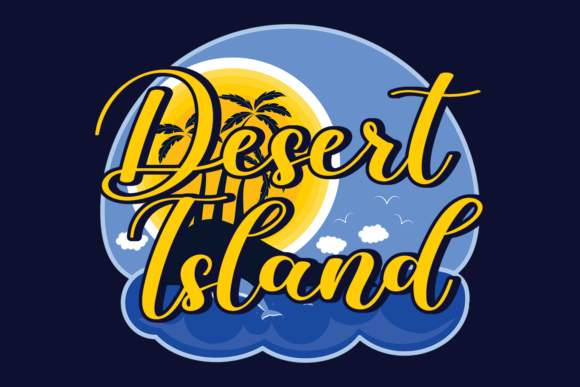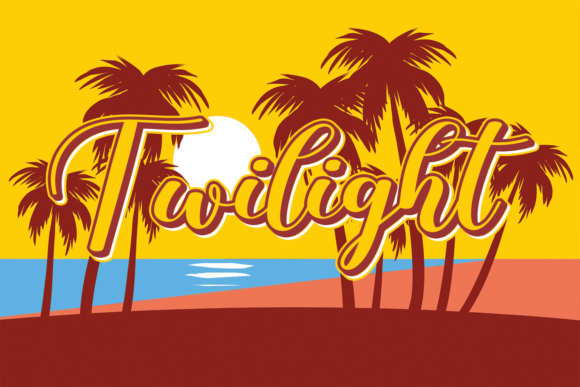
Summer Vibes Font
db-ku.com - Script & Handwritten -- Summer Vibes is a retro and flowing script font that exudes trendiness and versatility. This font was particularly crafted for those who need a beautiful and chic look to their designs.